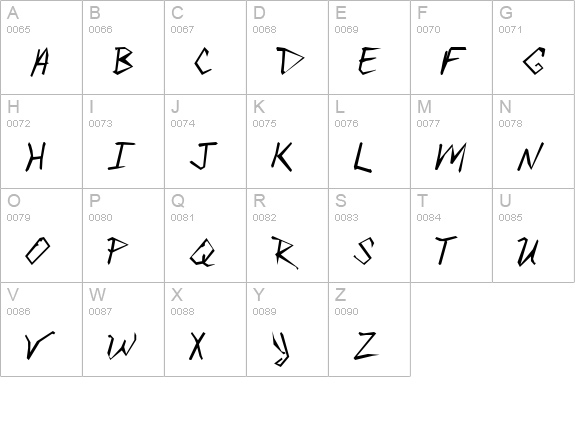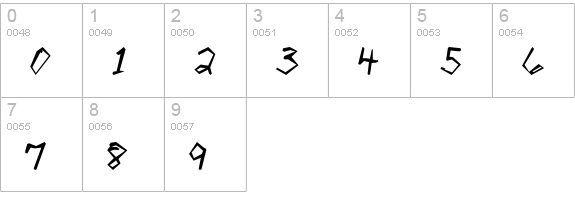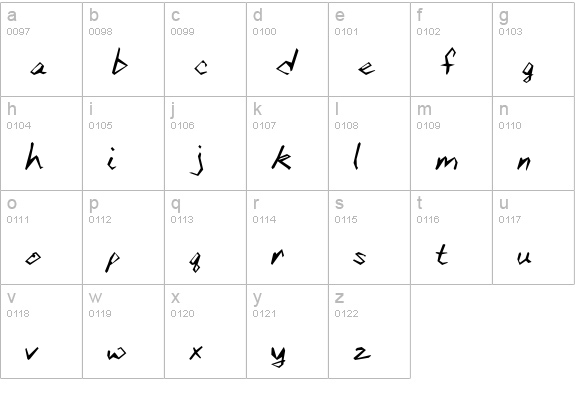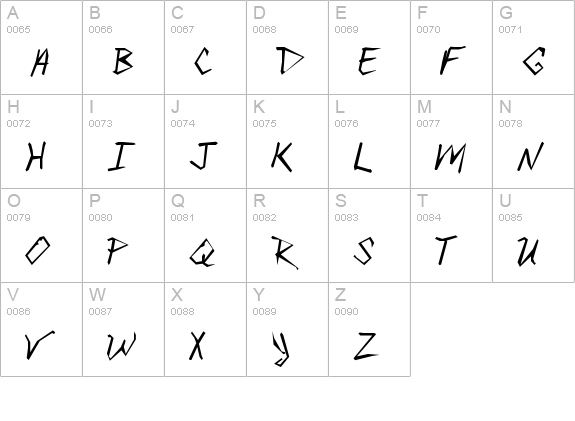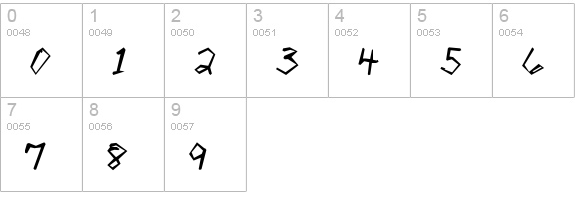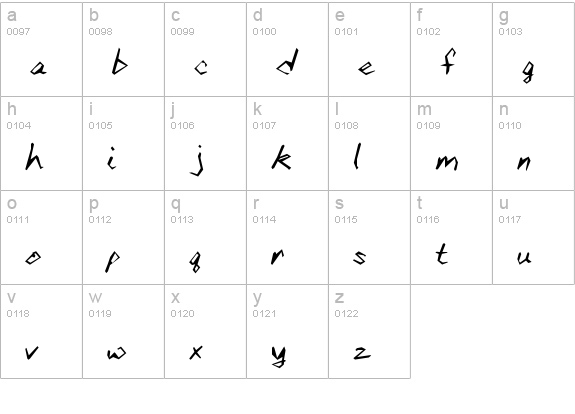
BethHand Angular Font Details
BethHand Angular is a modern and stylish font that exudes elegance and sophistication. Its unique angular design sets it apart from traditional fonts, making it perfect for projects that require a touch of creativity and innovation. The sharp edges and clean lines of BethHand Angular give it a contemporary feel, making it ideal for a wide range of design applications. What sets BethHand Angular apart is that it is available for free download at FontsMarket.com. This means that you can easily access this beautiful font without any cost, making it a valuable addition to your font collection. Whether you are working on a personal project or a professional design, BethHand Angular is sure to make a statement and elevate your work to the next level. Add a touch of sophistication and creativity to your designs with BethHand Angular, the free font that is sure to impress. Download it today from FontsMarket.com and unlock its full potential for your projects.